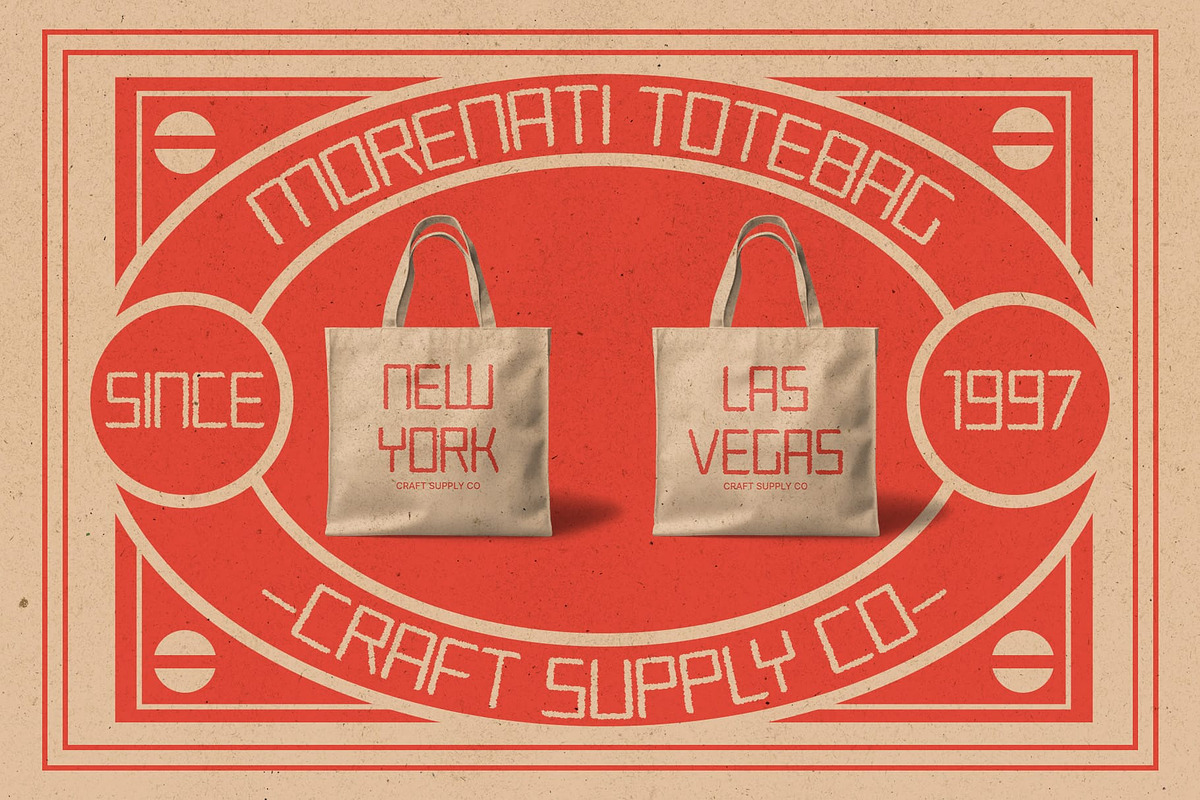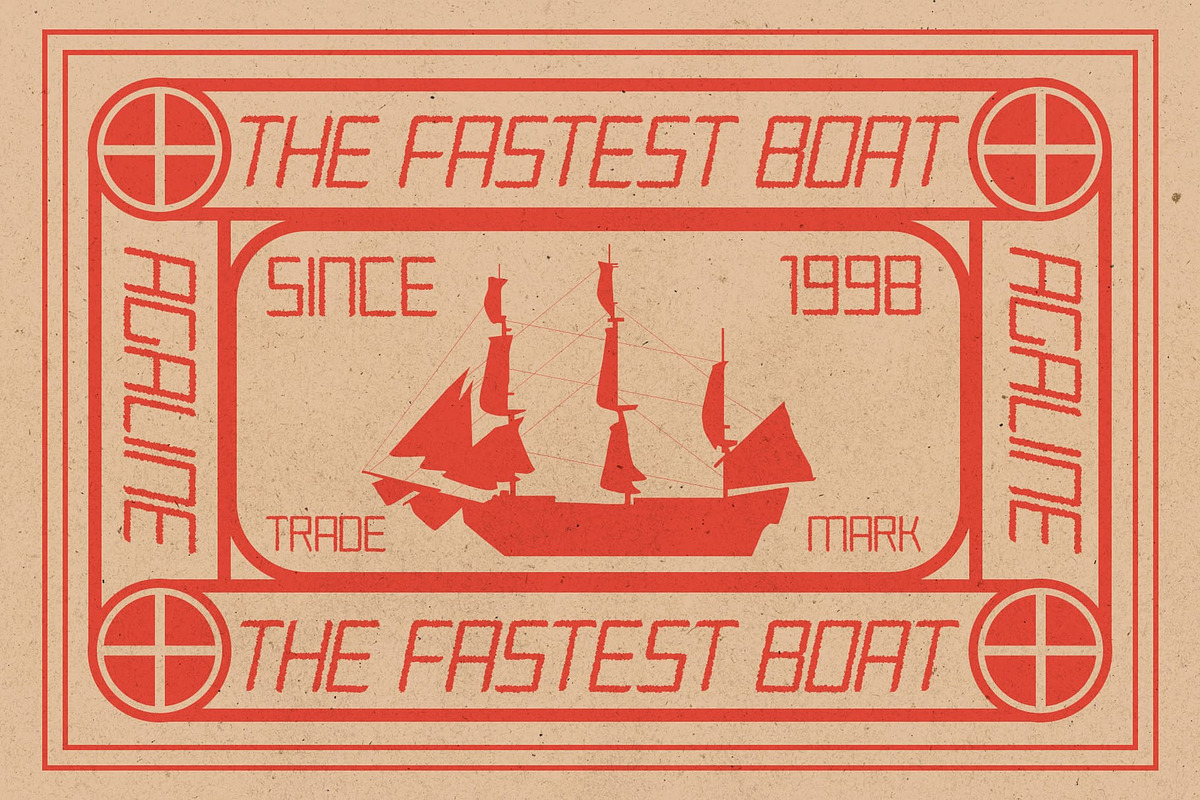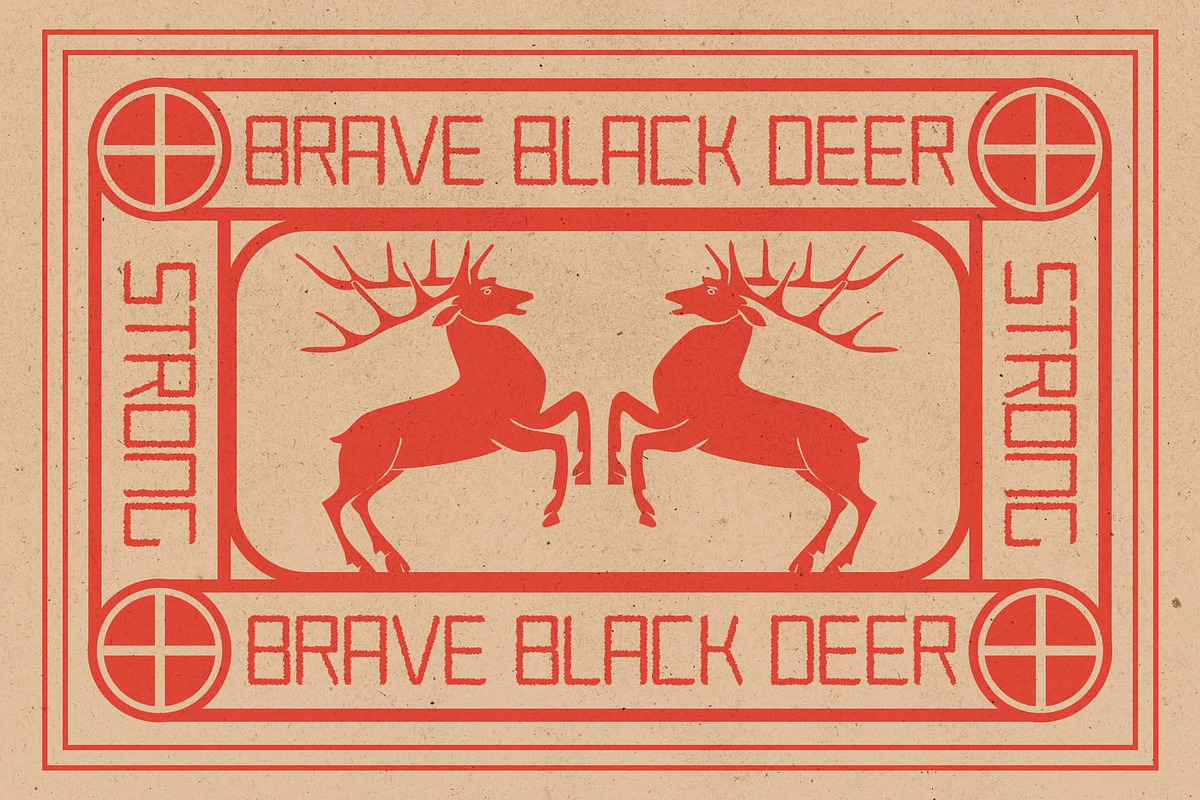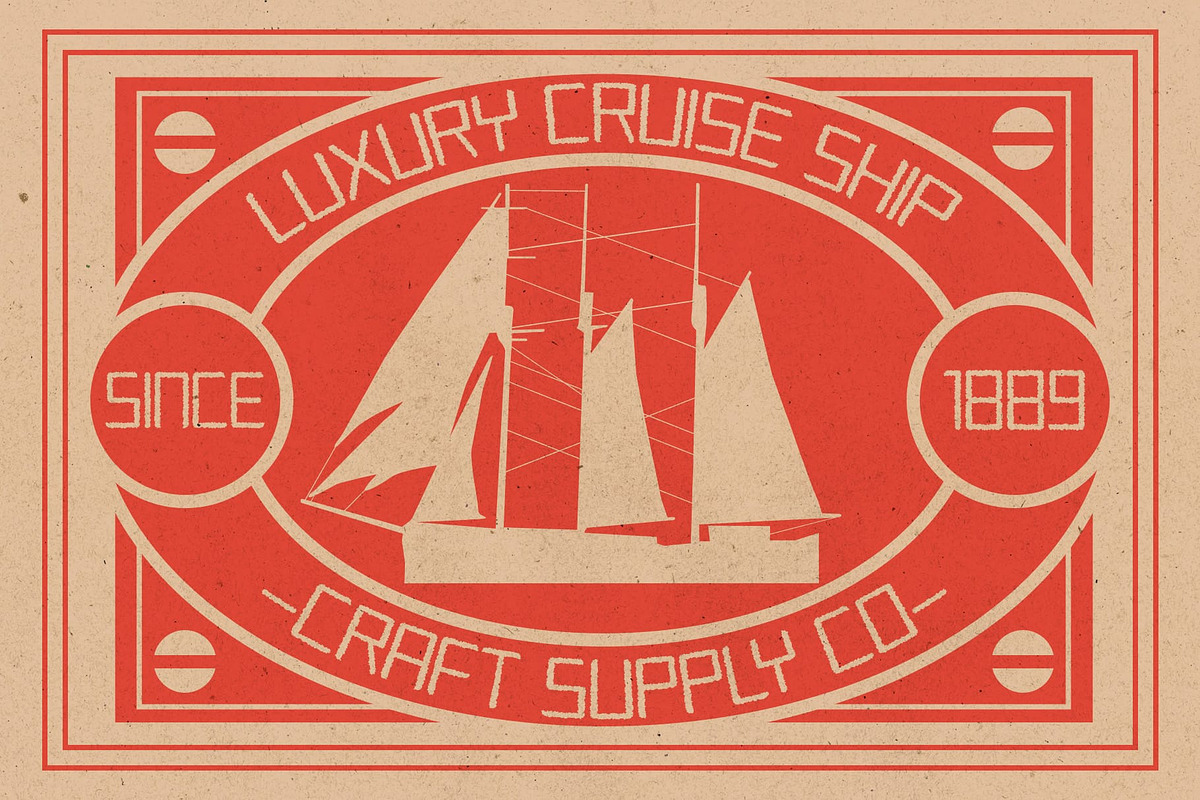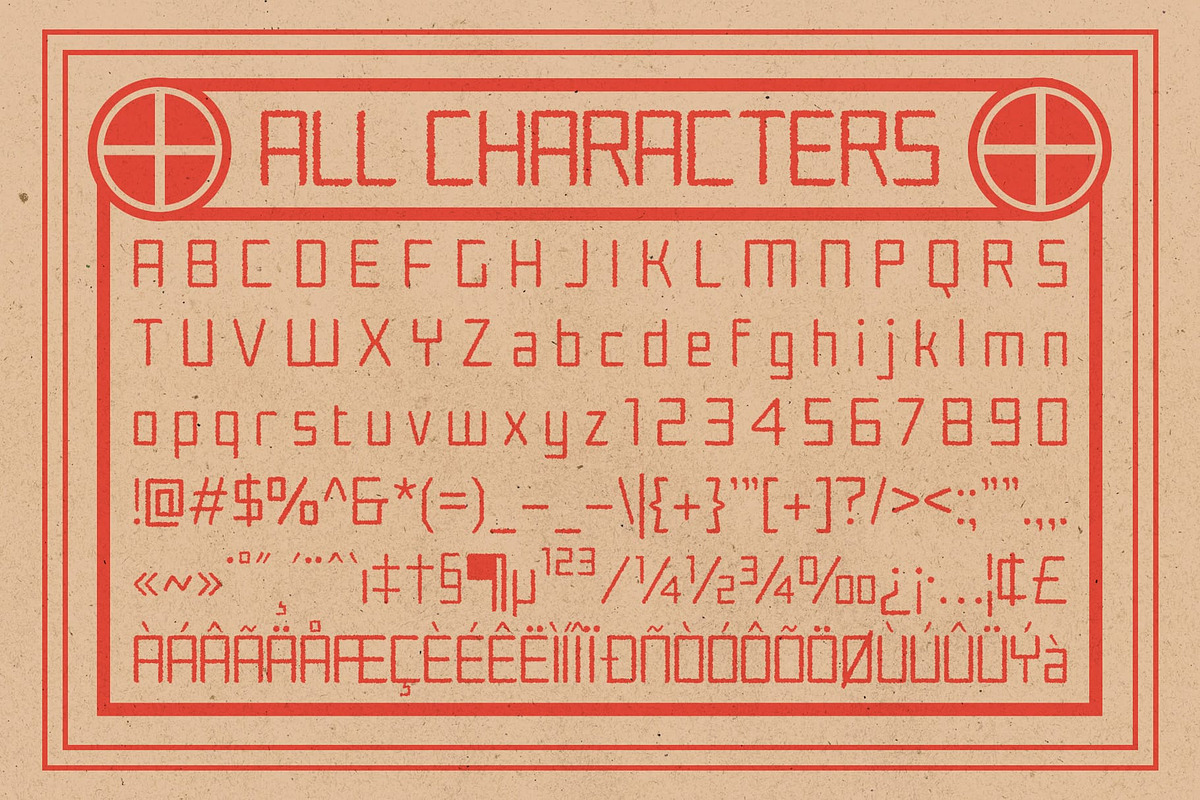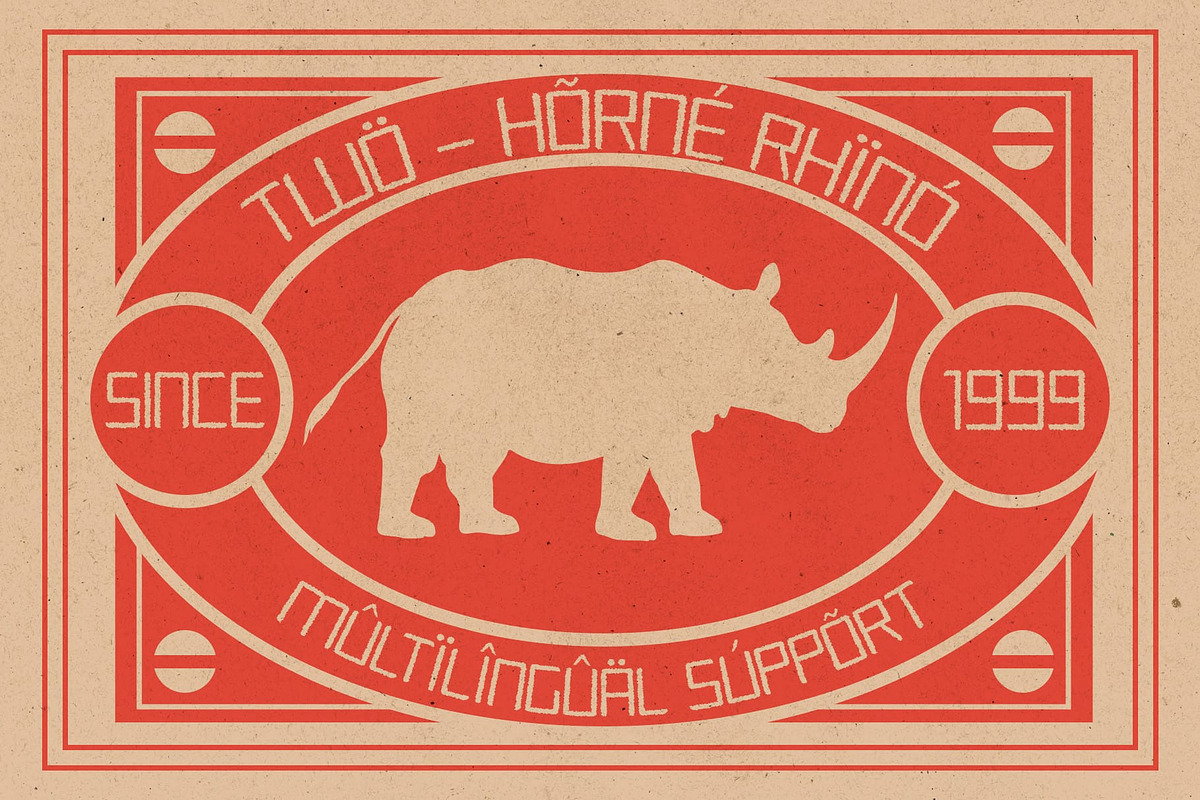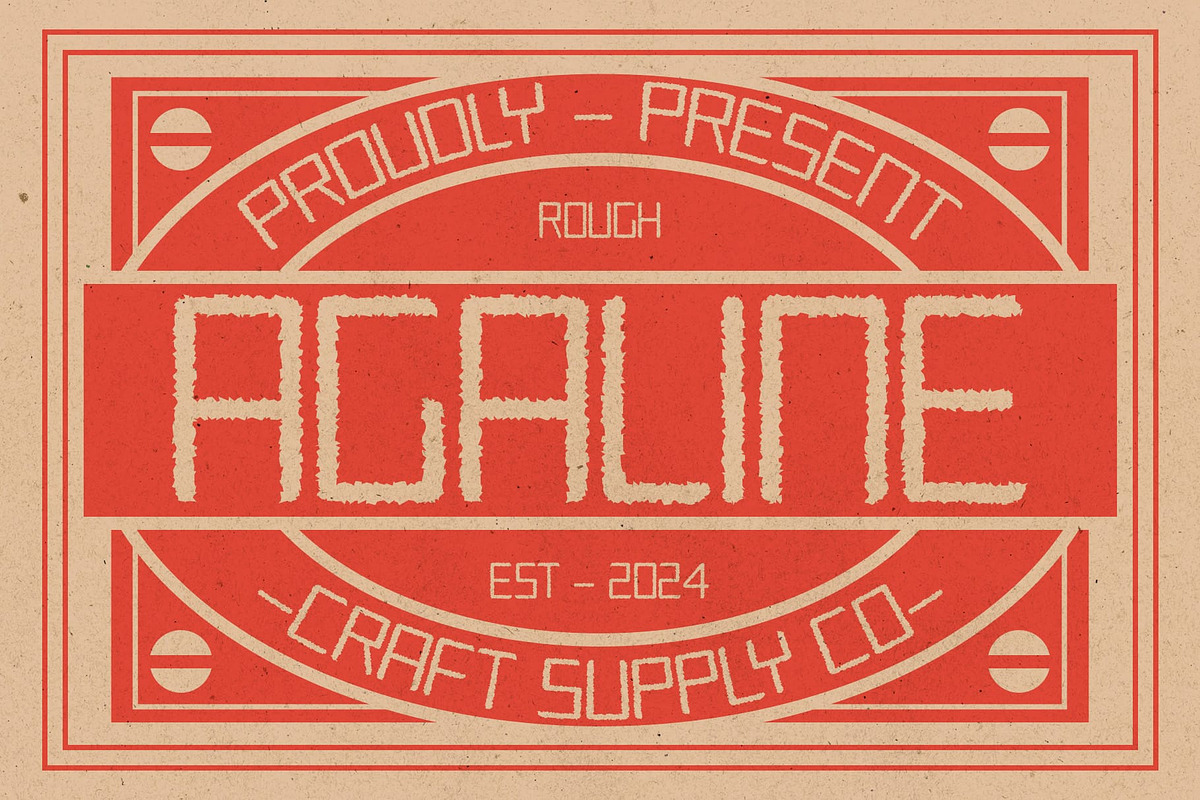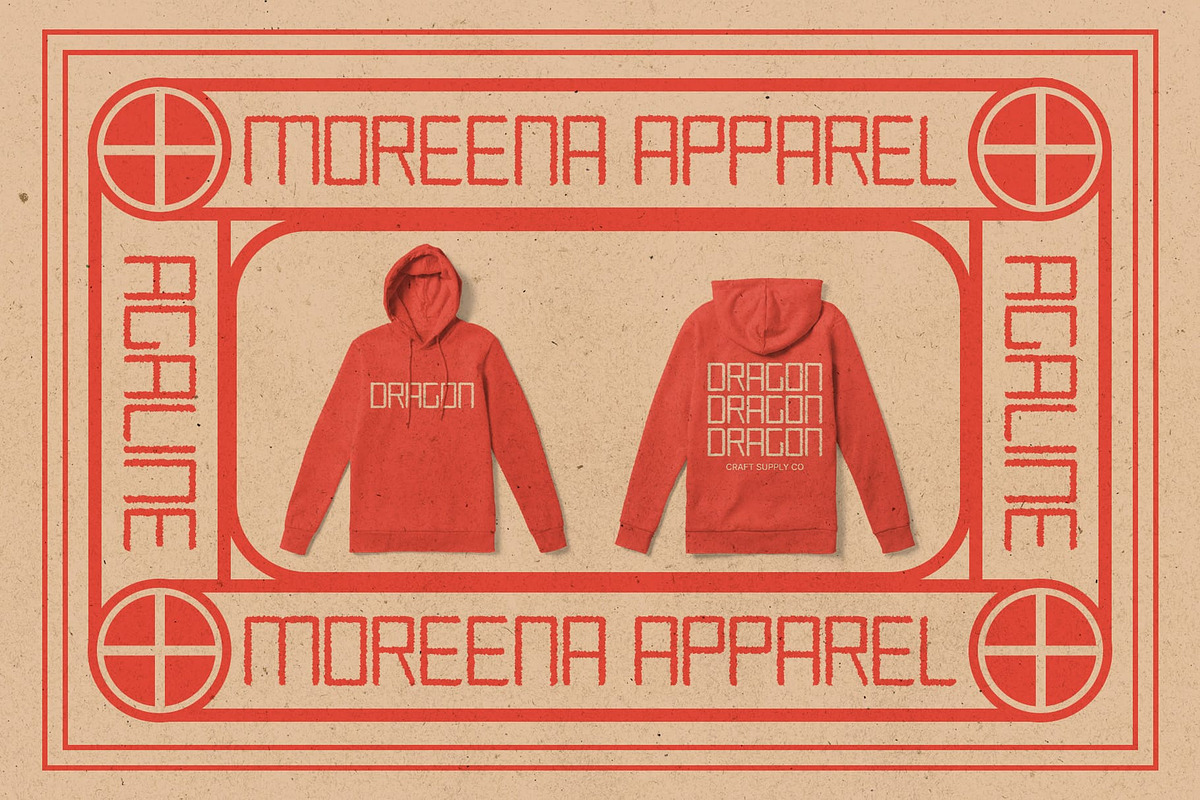
Agaline Rough
Agaline Rough: Vintage Charm with Geometric Simplicity
Geometric Concept Agaline Rough embodies a sleek geometric concept, characterized by clean lines and minimalist shapes. Its design is modern yet timeless, perfect for contemporary display projects.
Low Contrast Appeal With its low contrast style, The font offers a balanced and harmonious appearance. Each character maintains consistent weight, resulting in excellent legibility and visual cohesion.
Rough Effect The font is enhanced with a rough effect, adding texture and depth to its geometric forms. This vintage-inspired roughness adds character and authenticity, making Agaline Rough ideal for retro-themed displays.
Vintage Display Versatility This font combination of geometric simplicity and vintage roughness makes it highly versatile for display purposes. From posters and signage to digital designs and branding, it brings a touch of retro charm to any project.
Timeless Geometric Elegance with Vintage Flair This font seamlessly blends modern geometric design with vintage-inspired roughness, offering a versatile font solution for a wide range of display applications. Its low contrast and distinctive rough effect add depth and character, making it a standout choice for designers seeking a unique vintage display font.